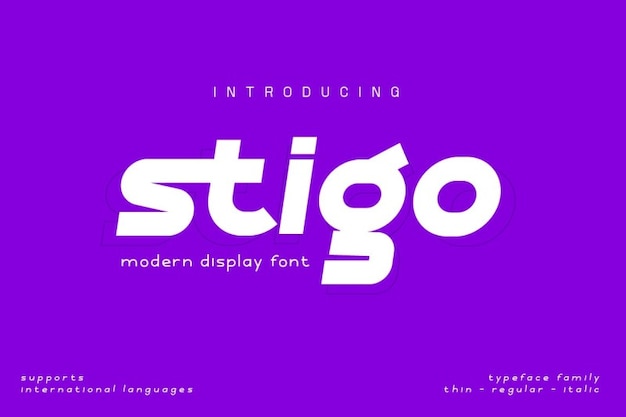
Stigo Font
This is Stigo! A modern and attractive sans-serif font that stands out because of its simple and clean look. Its curvy and thick strokes make this typeface an ideal choice for any project, especially for display or logos. Download this font now and start creating!